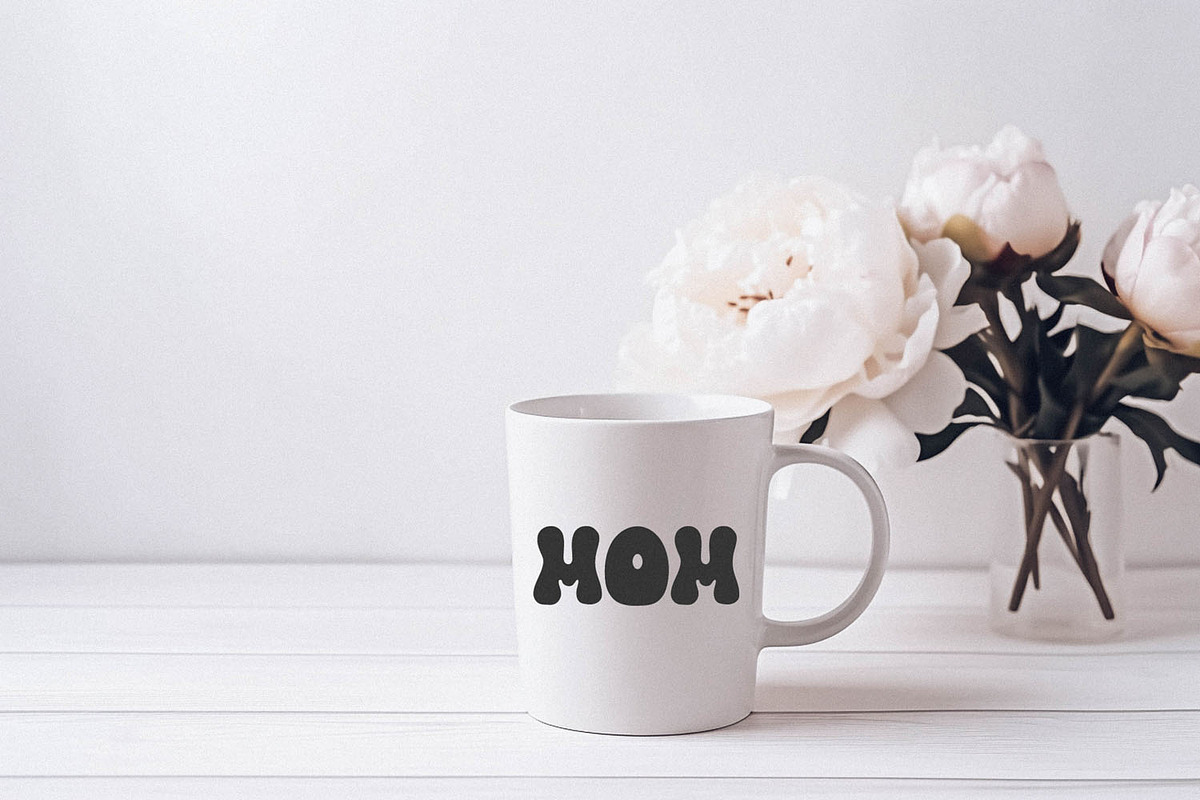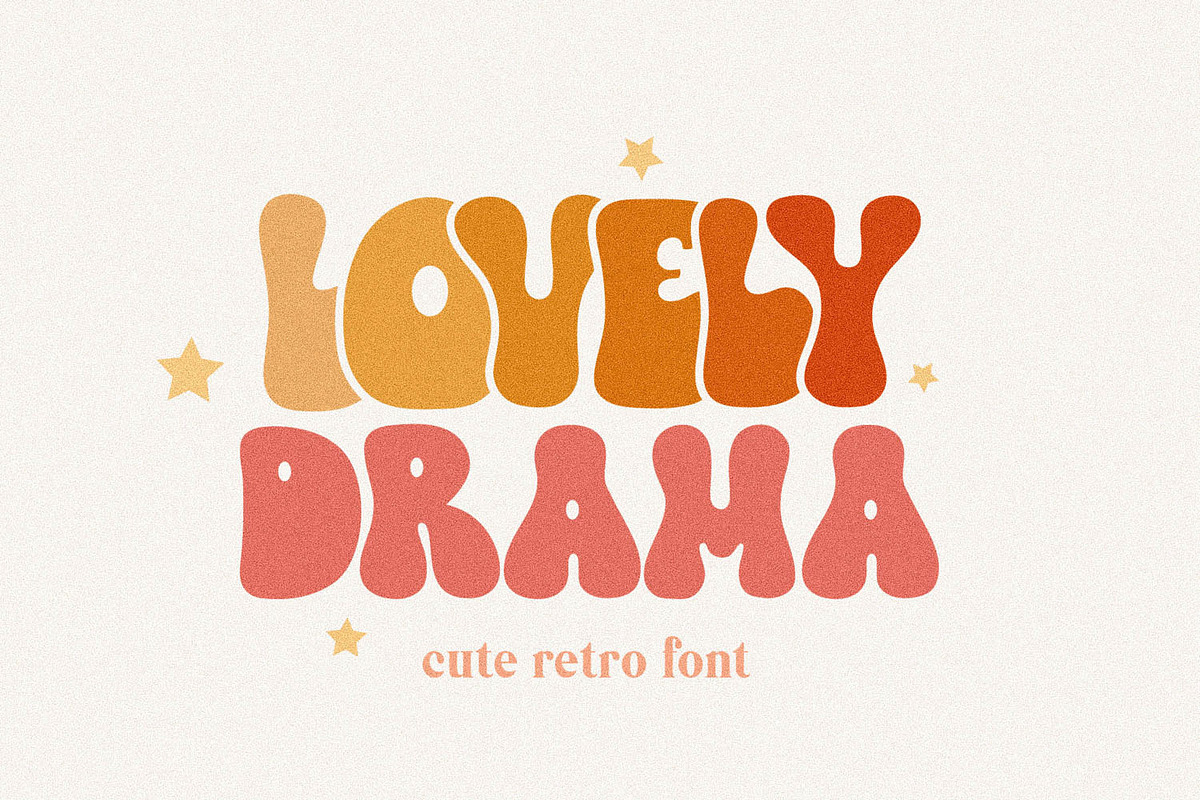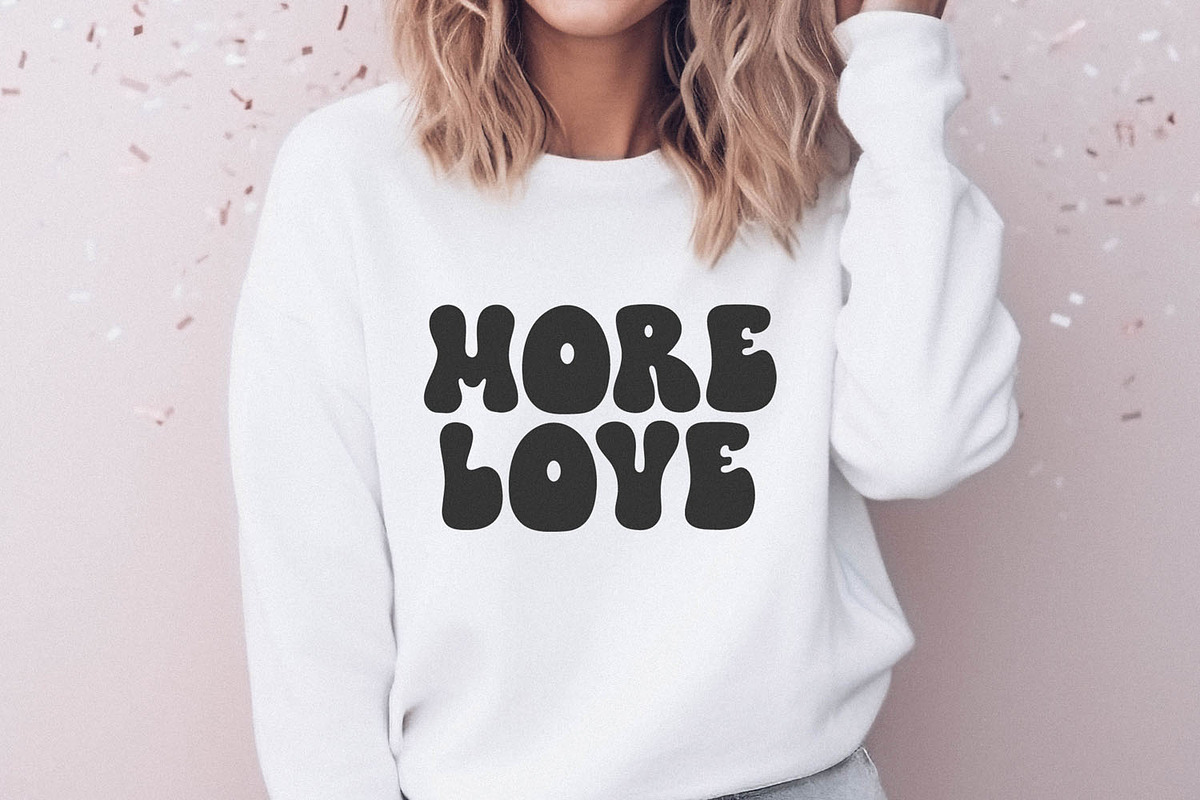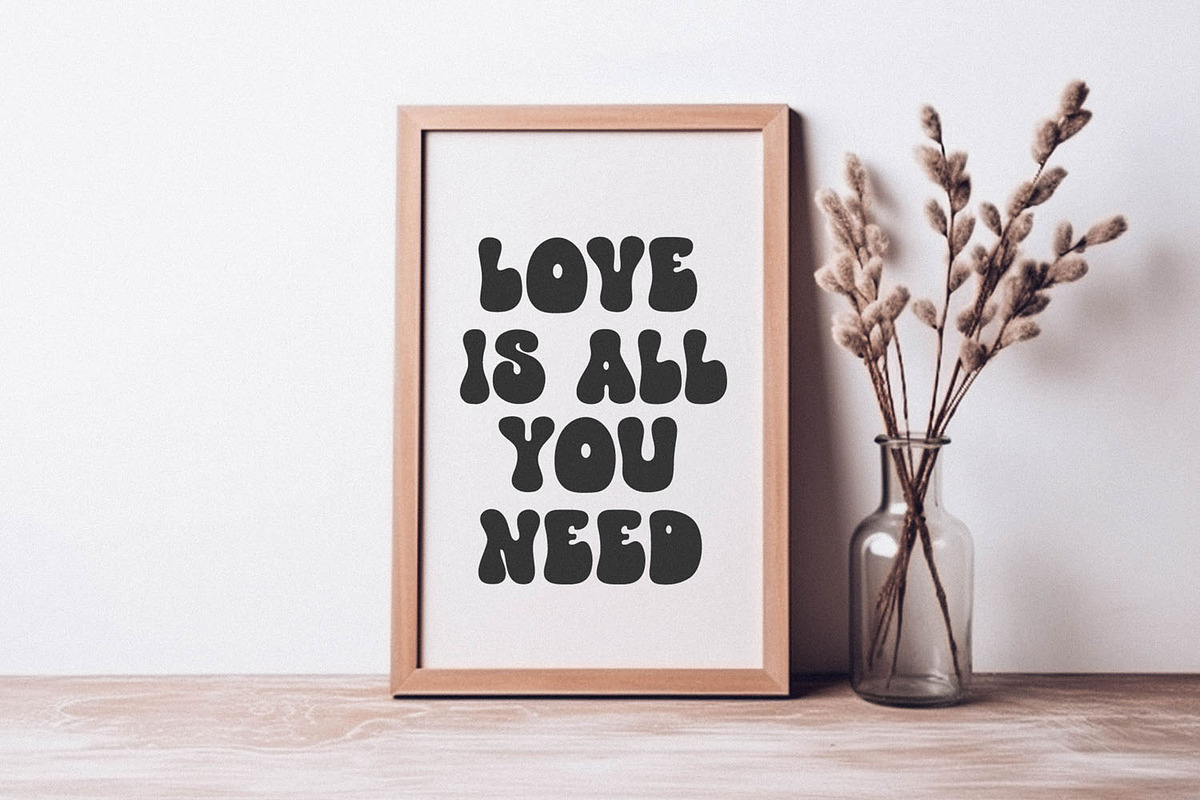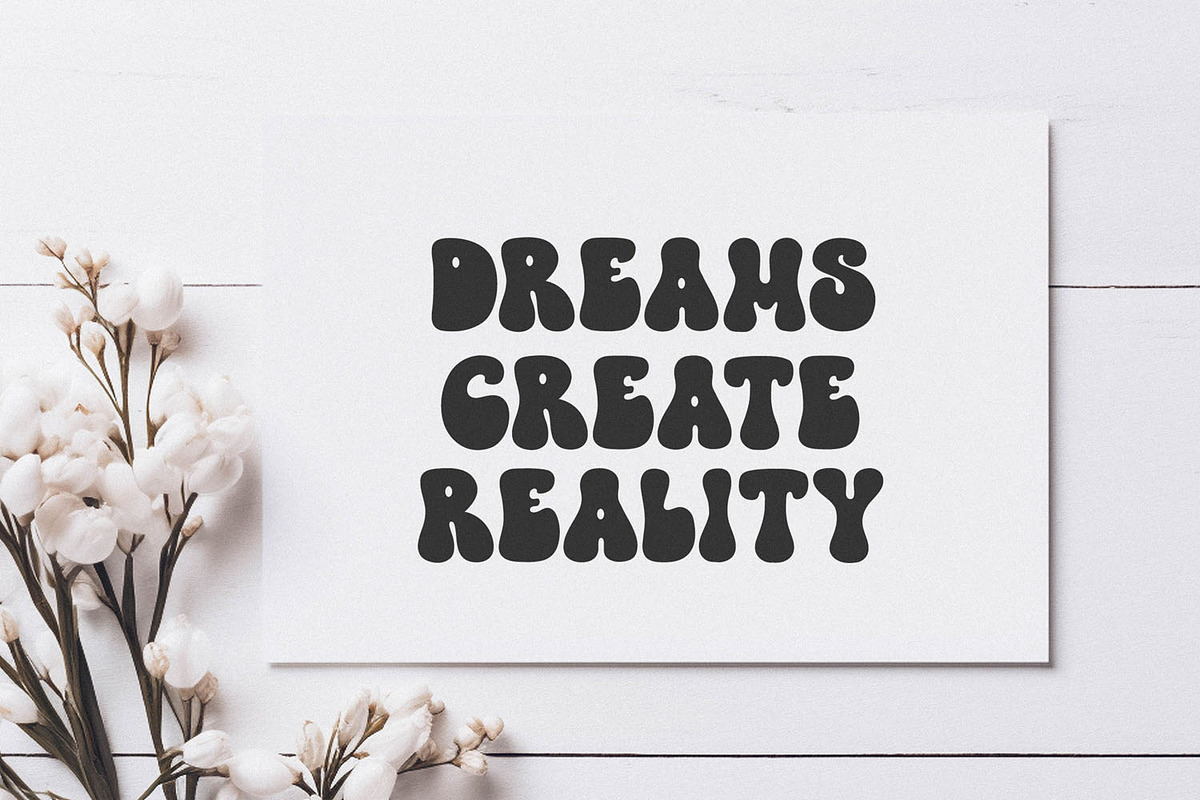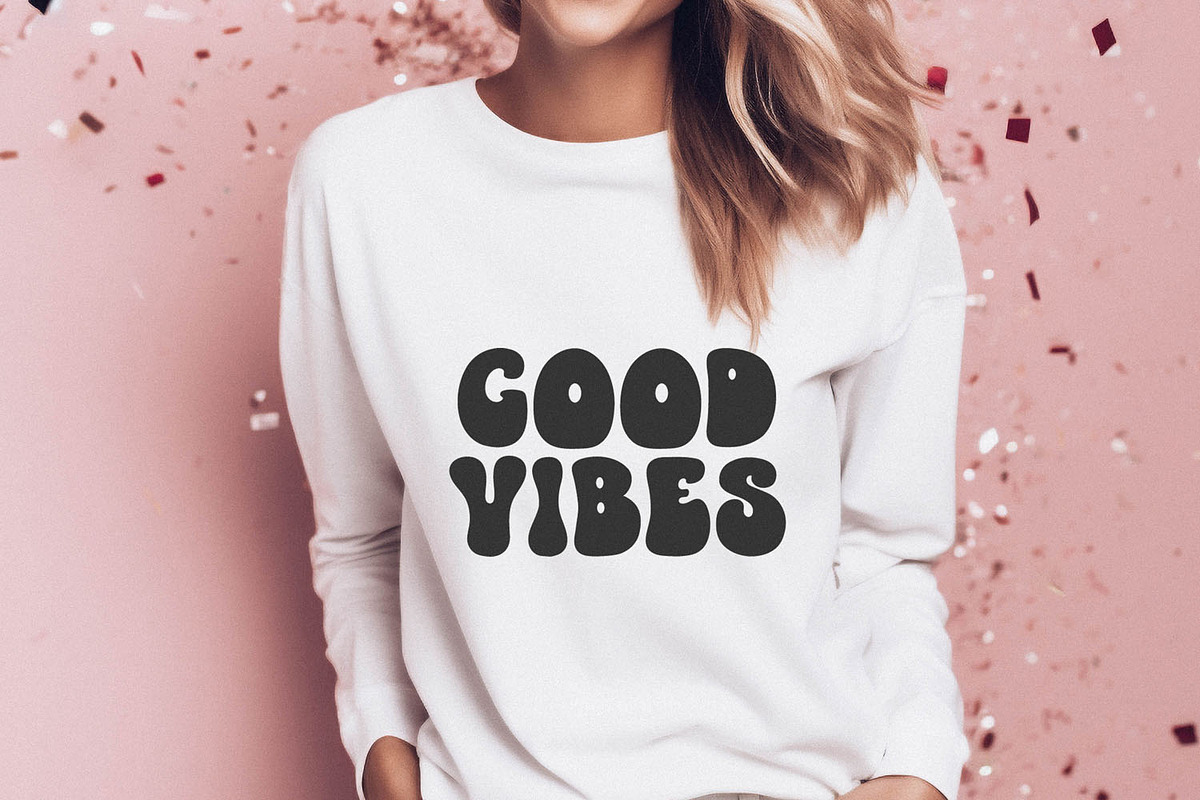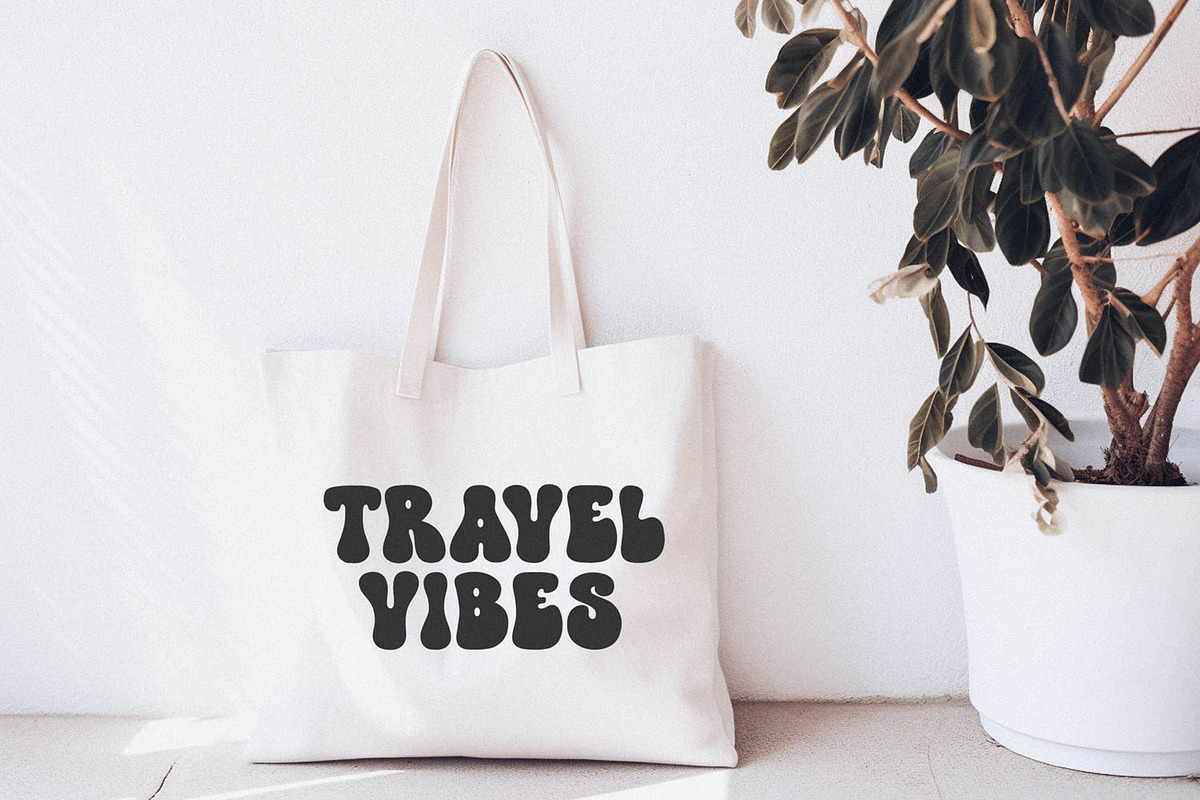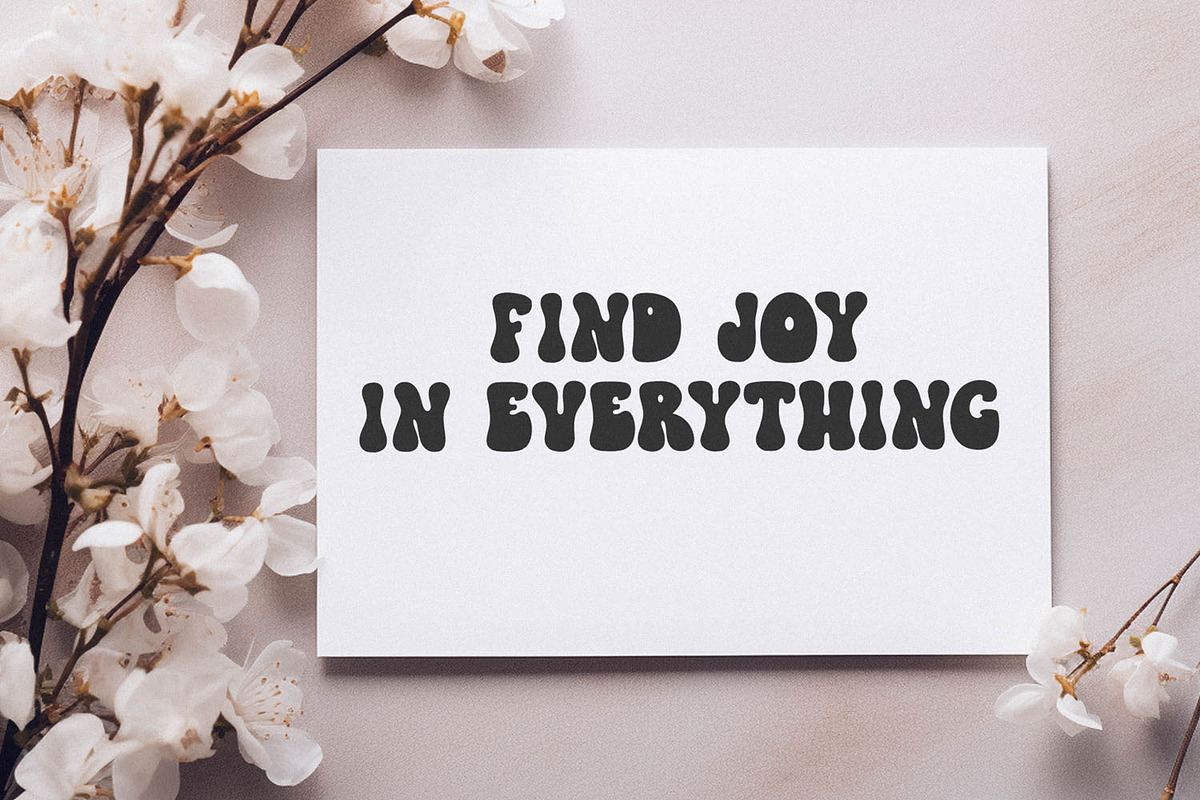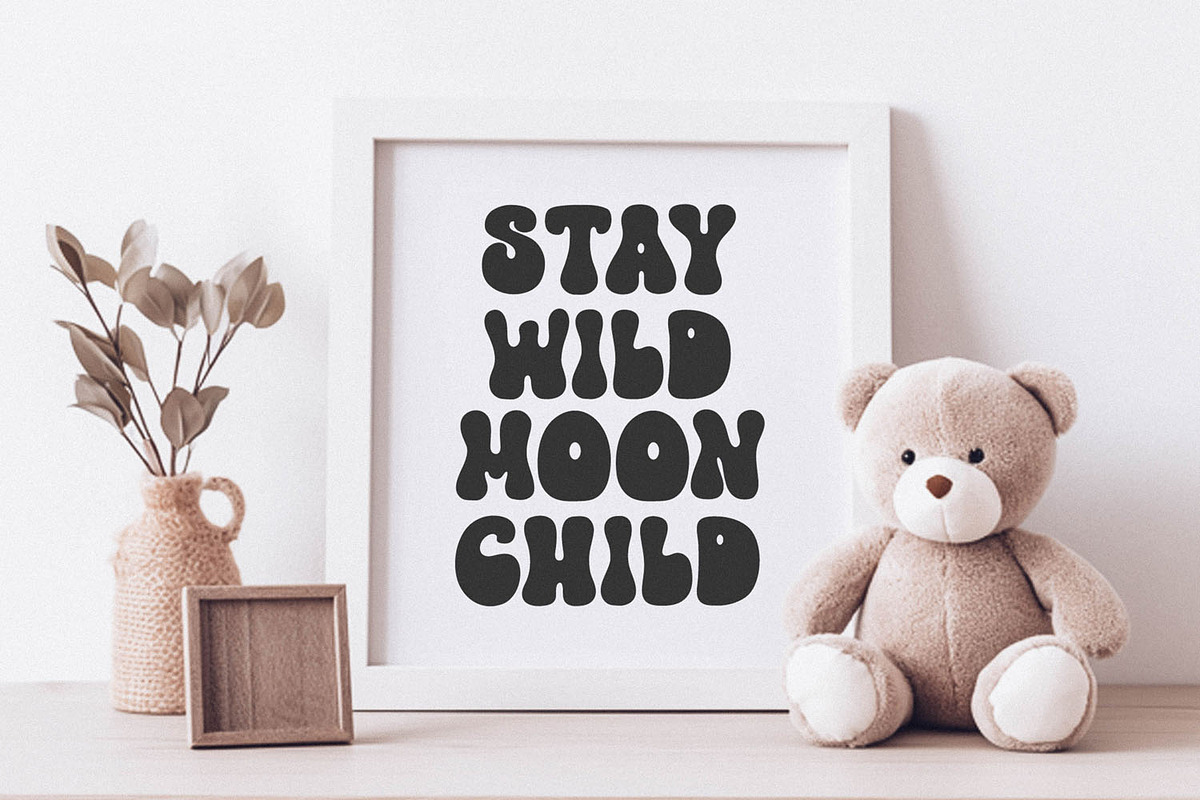
Lovely Drama Cute Groovy Font
Lovely Drama Font - cute groovy handwritten font for crafters and designers.
Perfect to create:
DIY Decorations: Create your own decorations like banners, stickers, signs, wall posters, pillows, mugs for your home or party venue.
Craft Projects: Design craft projects such as scrapbooking, cricut projects, sublimation designs.
T-shirt Designs: Print t-shirts with cute or fun messages.
School Projects: Enhance school presentations or projects.
Social Media Graphics: Design attention-grabbing posts for your social media accounts.